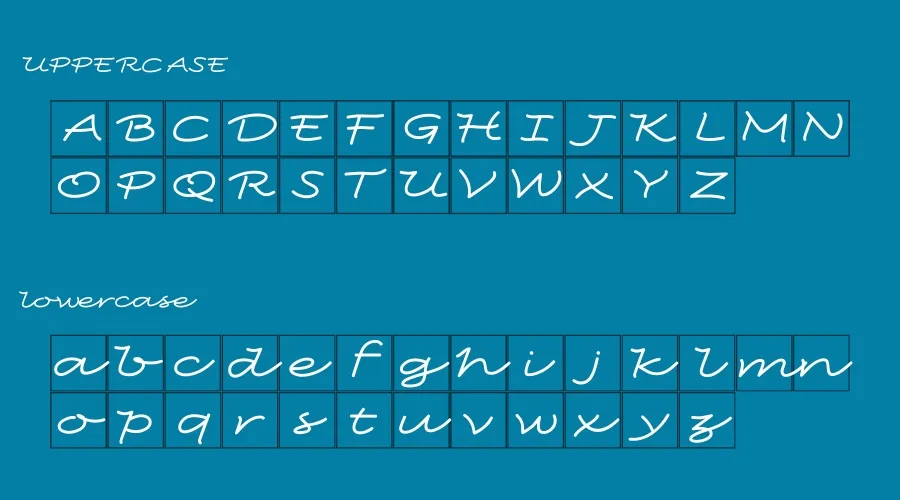
Ld Slanted Font
About Ld Slanted Font
Ld Slanted Font has an incredibly unique aspect that contributes to its simple and noticeable design. It has distinctive characters that can be used in all kinds of design. All sets of characters, both in lower and upper are included in this font style.
Additionally, it has modern vocabulary, fashionable substitutes, unique symbols, and digits. This font can be used to create a variety of projects. If you want a typeface to give your task a distinctive style.
The typeface does have a clean, natural appearance that makes it perfect for projects that call for a unique feel. It is a fantastic option for projects that require an original and imaginative touch.